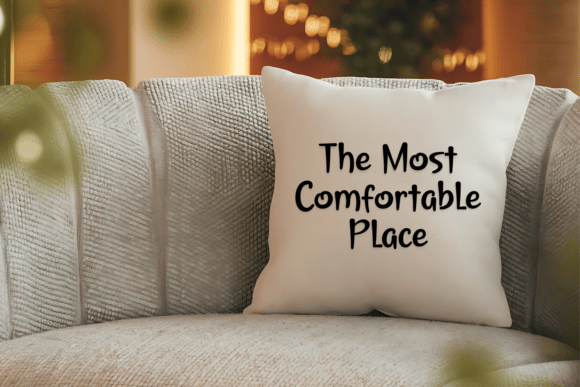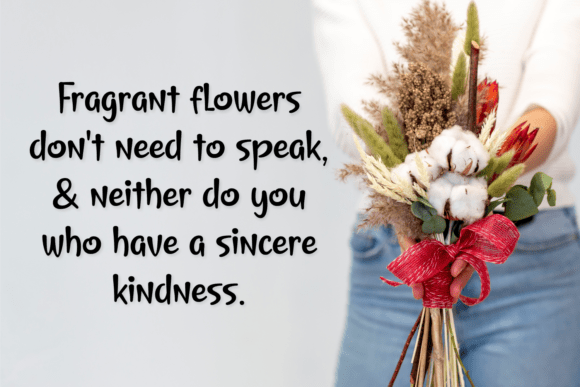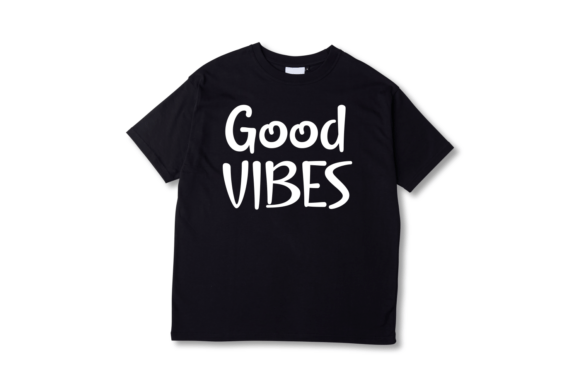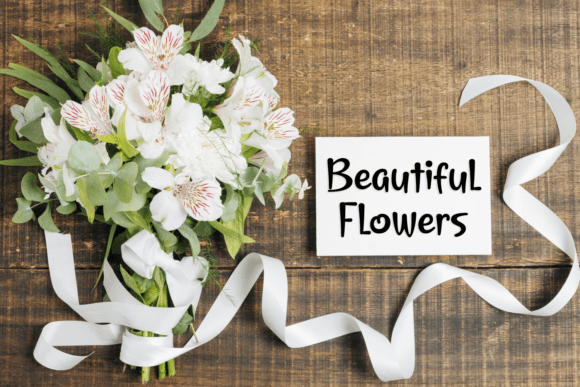
Introduction to Opposite Direction Font
Have you ever stared at a blank page, wondering how to infuse your next creative project with a touch of personality? For many designers, the answer lies in a well-chosen font that speaks directly to the heart. And that’s where the Opposite Direction Font comes in – a beautiful, handwritten font that effortlessly adds a personal touch to any design.
Perfect for sublimation t-shirt designs, this lovely font also radiates charm on blogger cards and wall art, making it a valuable resource for designers seeking to elevate their branding packaging and create unique, eye-catching designs. With its versatility and high-quality design, the Opposite Direction Font is an essential addition to any design library.
Whether you’re working on a Valentine’s Day project, an Easter-themed design, or a love-themed creation, this font is sure to bring a touch of magic to your work. And the best part? It’s available for free download, making it an accessible design resource for creatives of all levels.
Key Features of Opposite Direction Font
• Unique Typography: Opposite Direction Font offers an innovative approach to typography with letters and characters that can be read in opposite directions.
• High-Quality Design: This font is designed to provide a high-quality design resource for creative projects, ensuring a professional look and feel.
Honest Review: Opposite Direction Font
I recently stumbled upon the Opposite Direction Font while searching for a unique design resource for my current creative project. I was impressed by its sleek and modern design, making it a great addition to my design library.
What works well: ✨ The font’s transparent background makes it easy to use on both light and dark backgrounds. It’s also a high-quality font, perfect for commercial use. The free download option is a plus, making it accessible to designers of all levels.
What I wish was different: ⚠️ While the font’s design is great, it can be a bit challenging to read in smaller font sizes. Additionally, the font family is quite limited, with only a few styles available.
• Unique design
• Transparent background
• High-quality font
Overall, the Opposite Direction Font is a solid design resource, perfect for designers looking for a modern and sleek font for their creative projects. While it has some limitations, its strengths make it a valuable addition to any design library.
For the best results, use the Opposite Direction Font in conjunction with a high-quality design resource, such as a high-resolution image or a custom graphic. You can also use the font in conjunction with other design elements, such as shapes and icons, to create a unique and eye-catching design.
The Opposite Direction Font is a versatile design resource that can be used in a variety of creative projects, such as:
• Graphic design
• Logo design
• Infographic design
• Web design